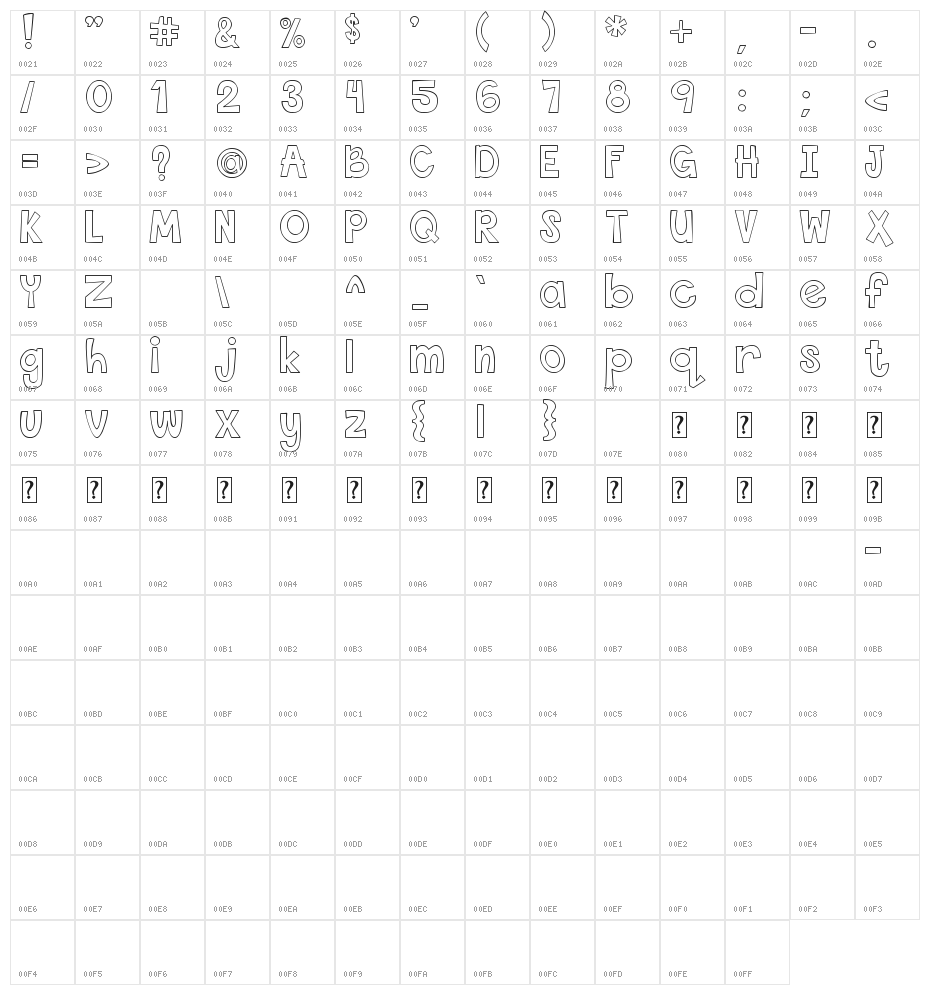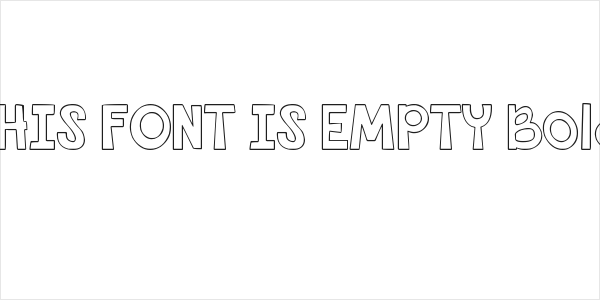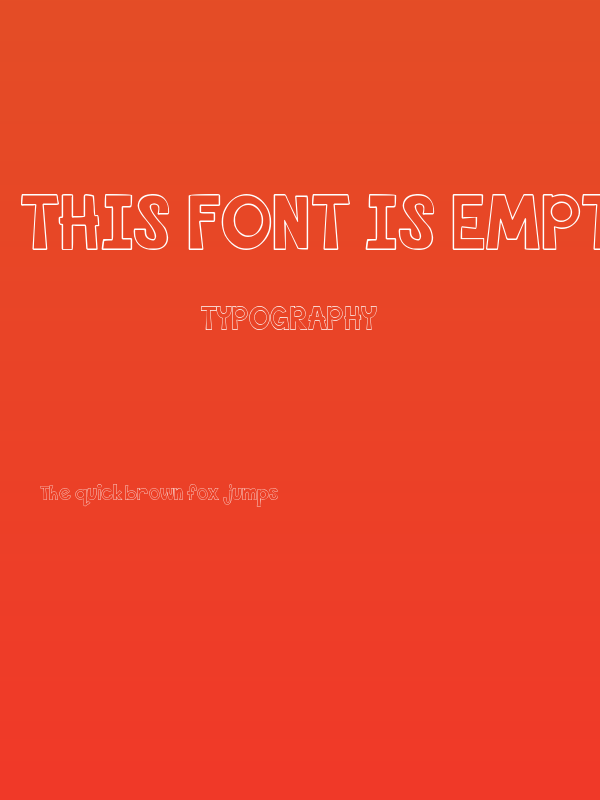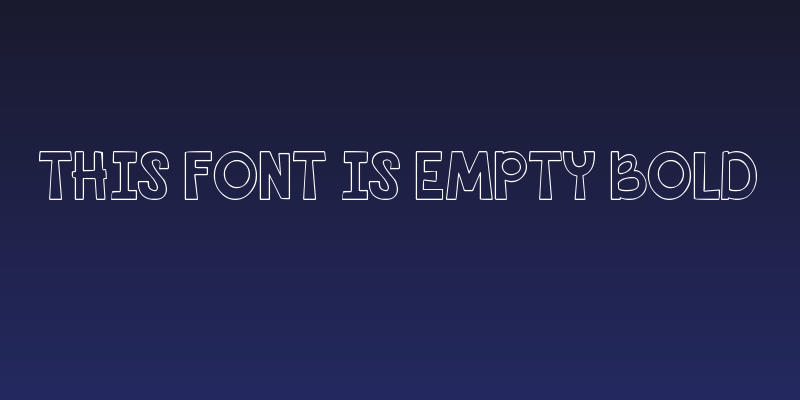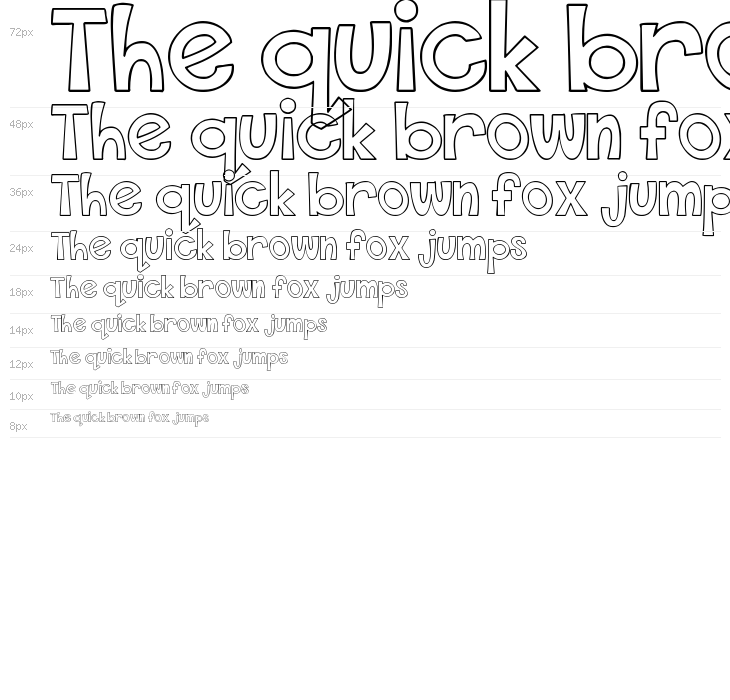
THIS FONT IS EMPTY Bold Font
THIS FONT IS EMPTY Bold Description
This playful and bold font features hollow, outlined characters that give a sense of fun and creativity. The uppercase letters are slightly wider with a whimsical touch, while the lowercase letters maintain a consistent style with rounded edges. The numerals are bold and easily readable, matching the overall playful theme. Special characters are included, maintaining the same outlined style, making this font versatile for various uses. The font's unique style is perfect for projects that require a lighthearted and engaging appearance.
| Overall Style | Playful, Creative |